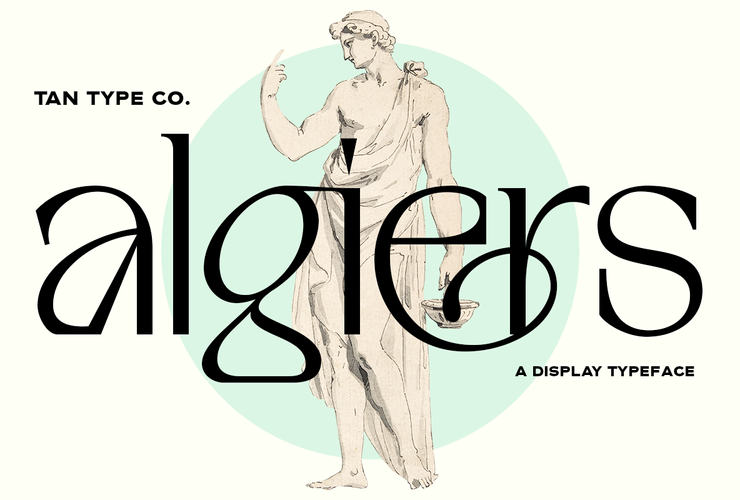
TAN Algiers Font Free Download
About TAN ALGIERS
TAN – ALGIERS is an elegant display typeface with a thin body that is perfect when you need something classy but not boring.TTF, OTF, WOFF, WOFF2Multilingual SupportFree future updatesOur typefaces work best in design software.Please be informed that while our font works well in Canva, but Canva itself doesn’t support advance opentype features such as special characters.For support, please contact TanType Co. through their Creative Market shop.